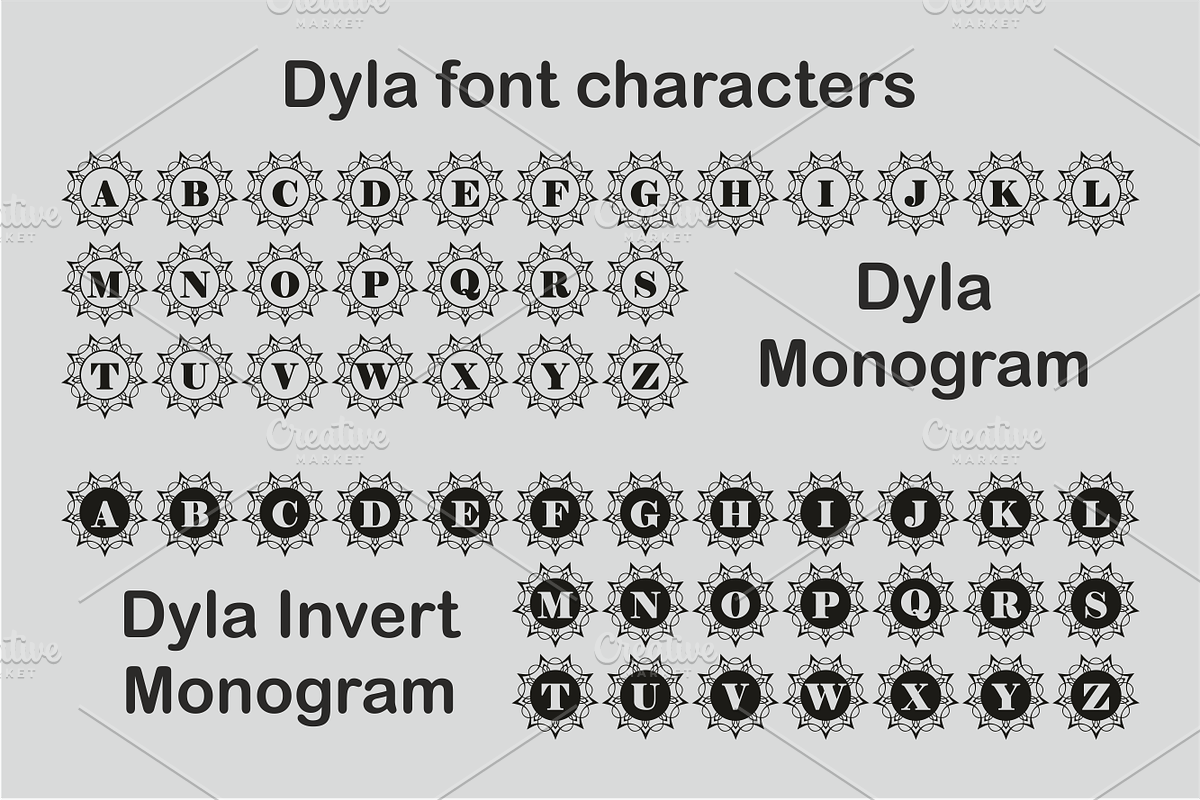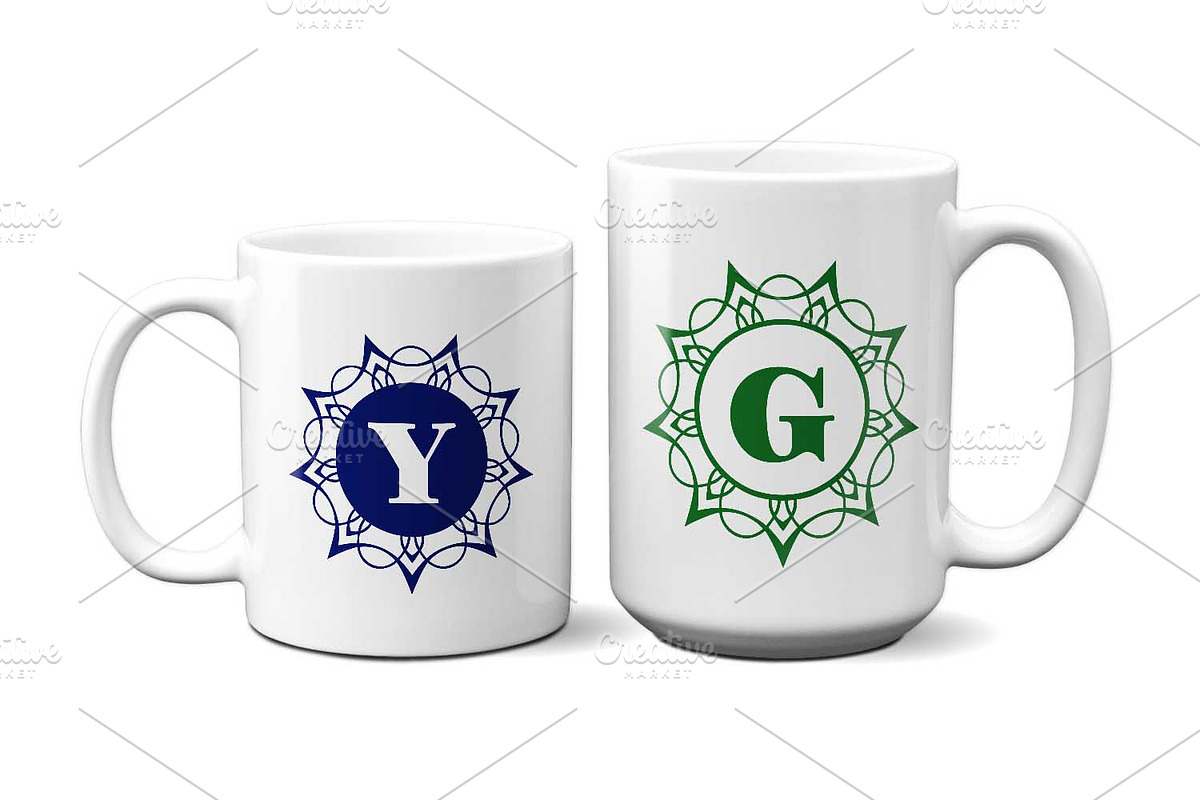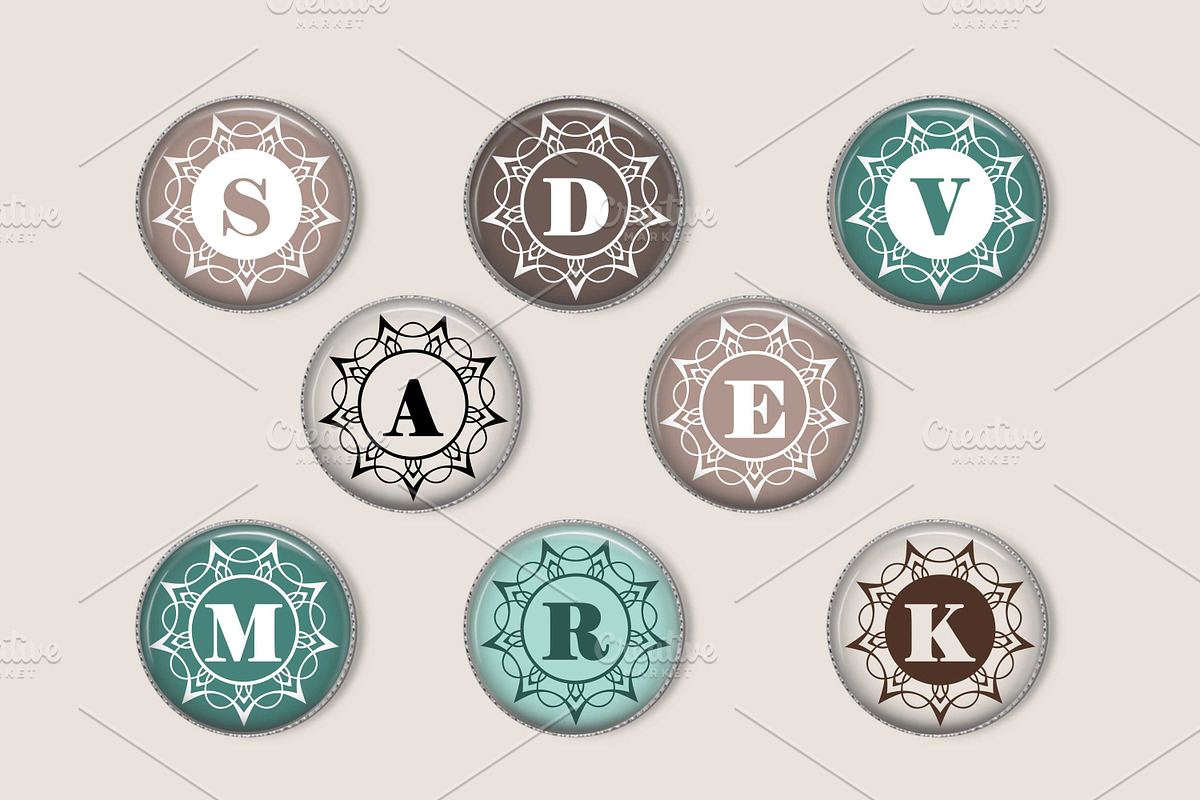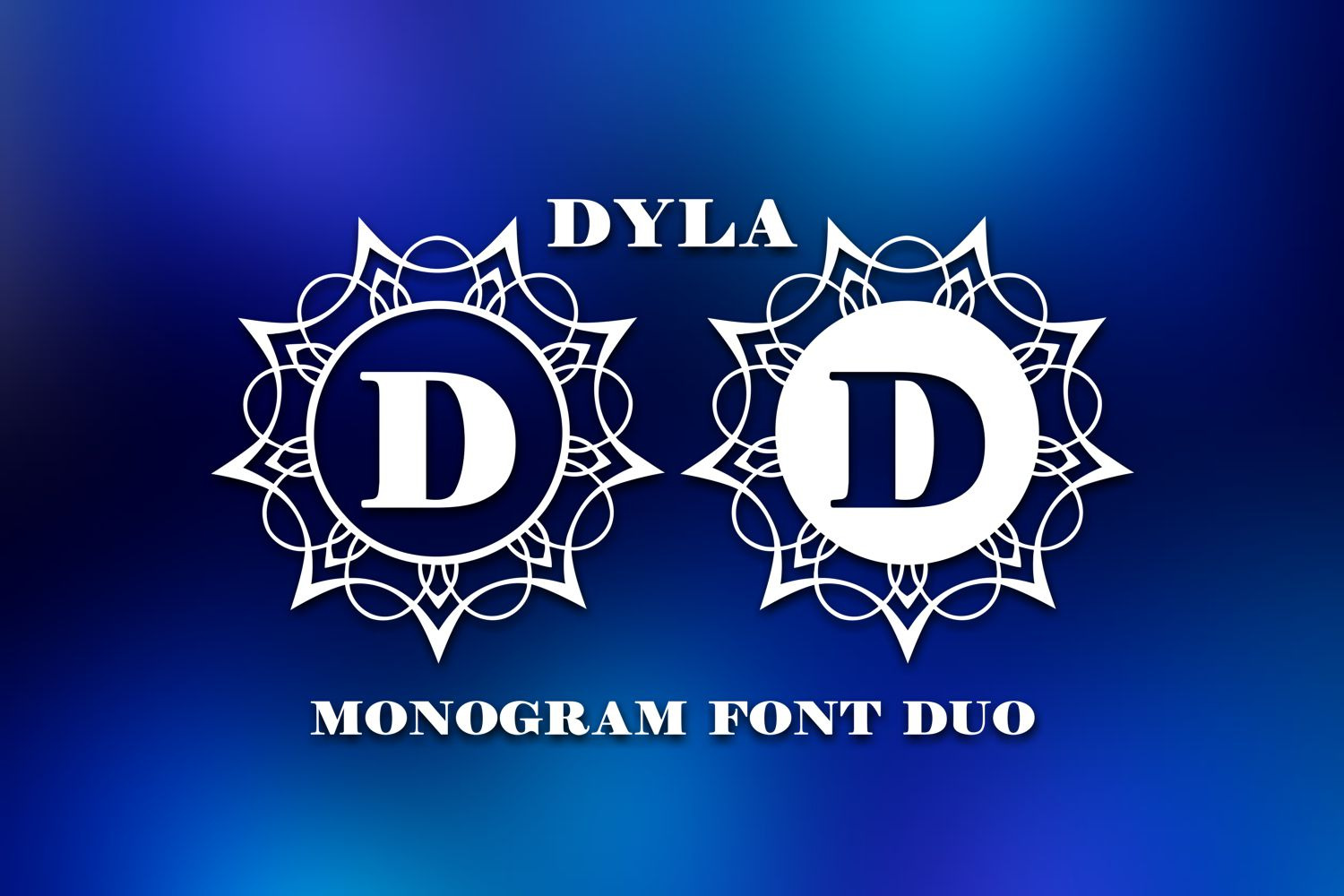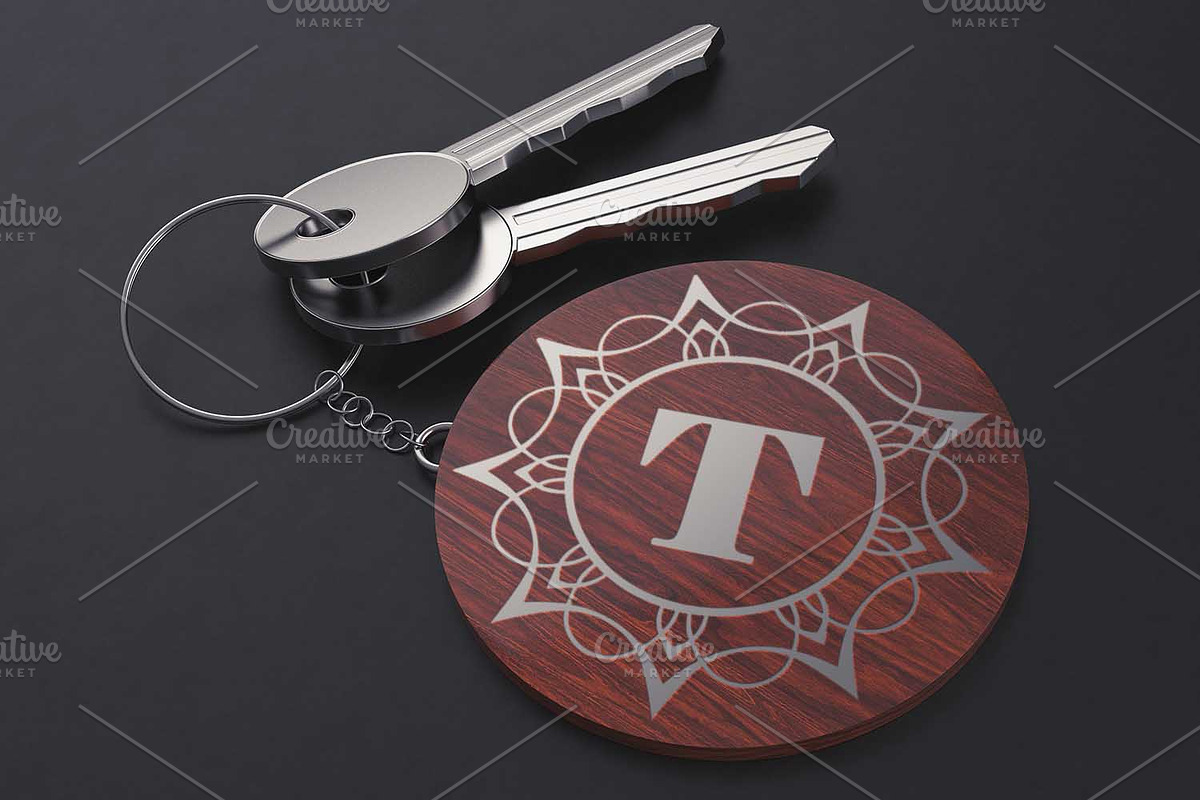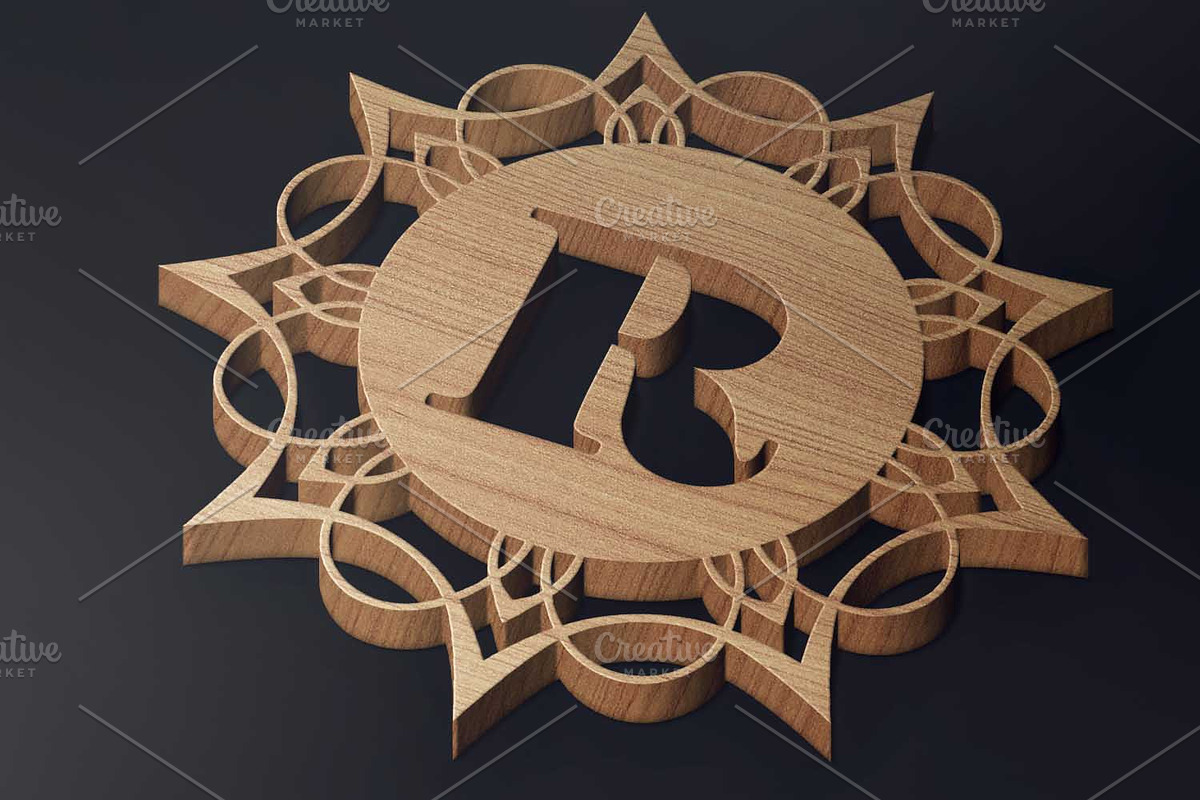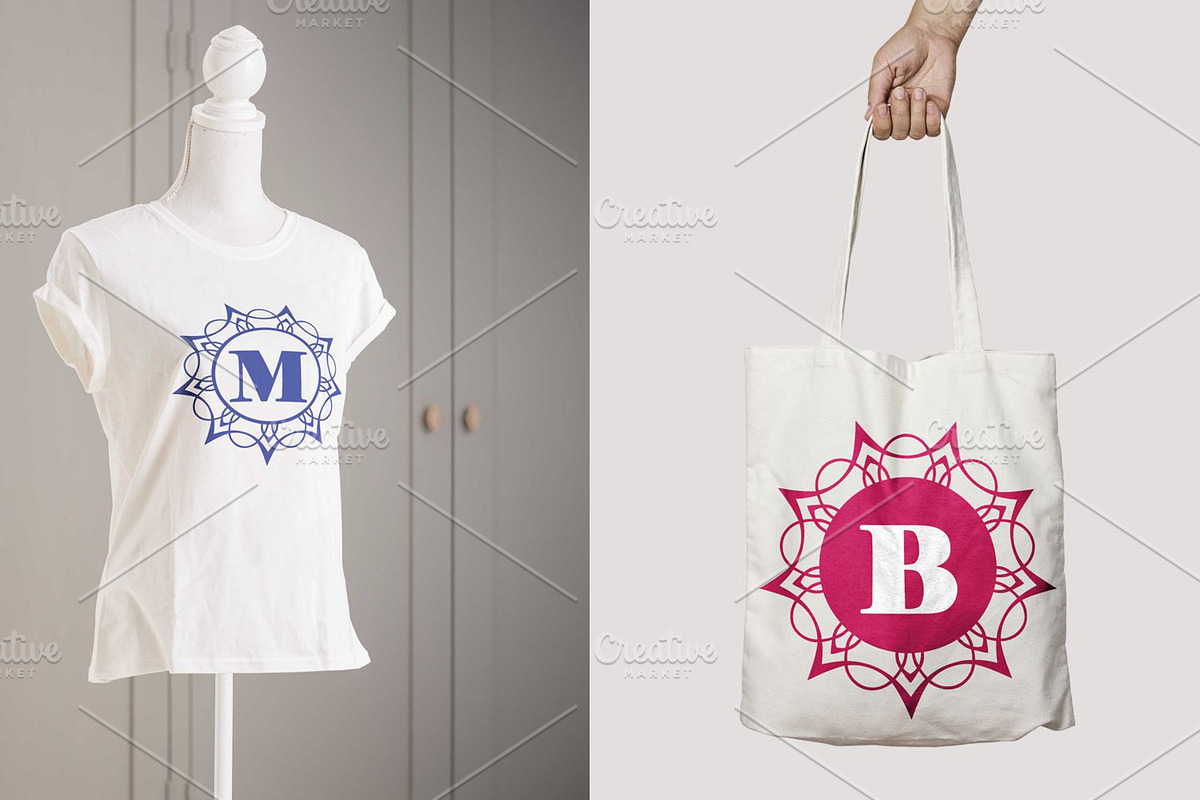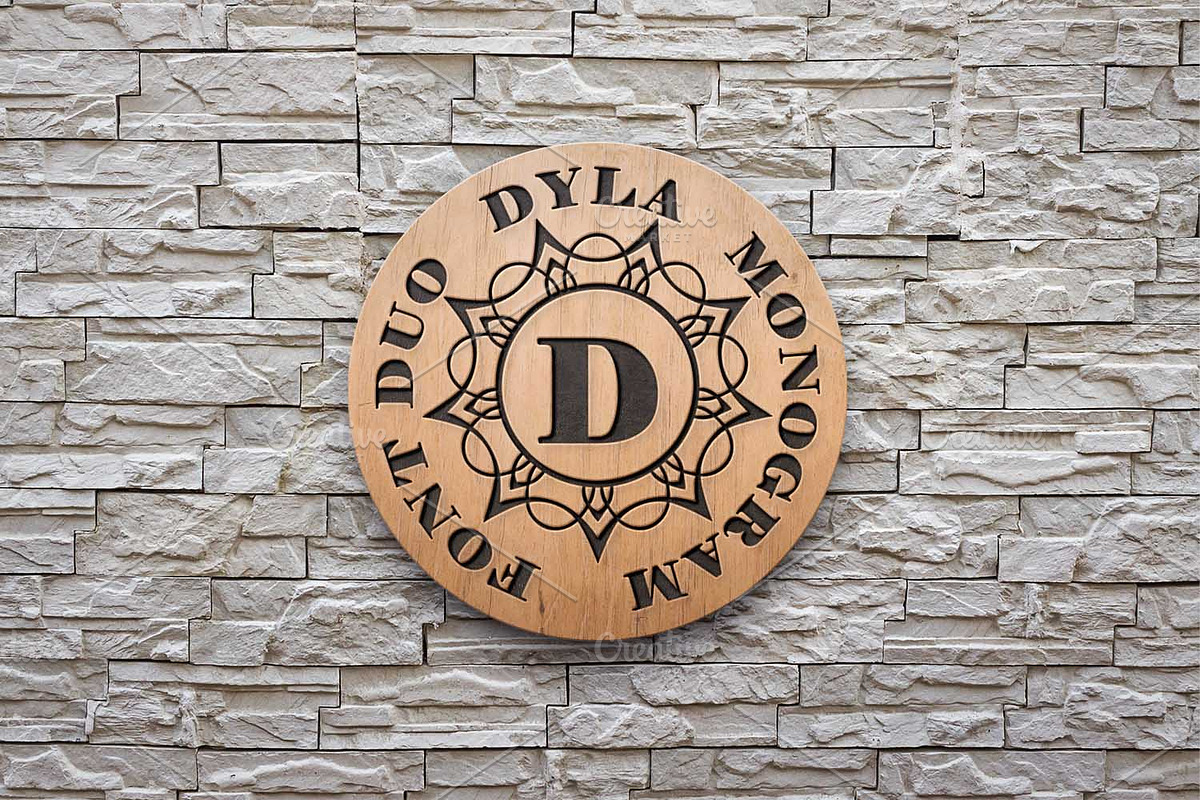
Dyla Monogram Font Duo
Dyla Monogram font is a great helper for a vary of craft, sublimation or print projects.
In this font, uppercase and lowercase characters are the same.